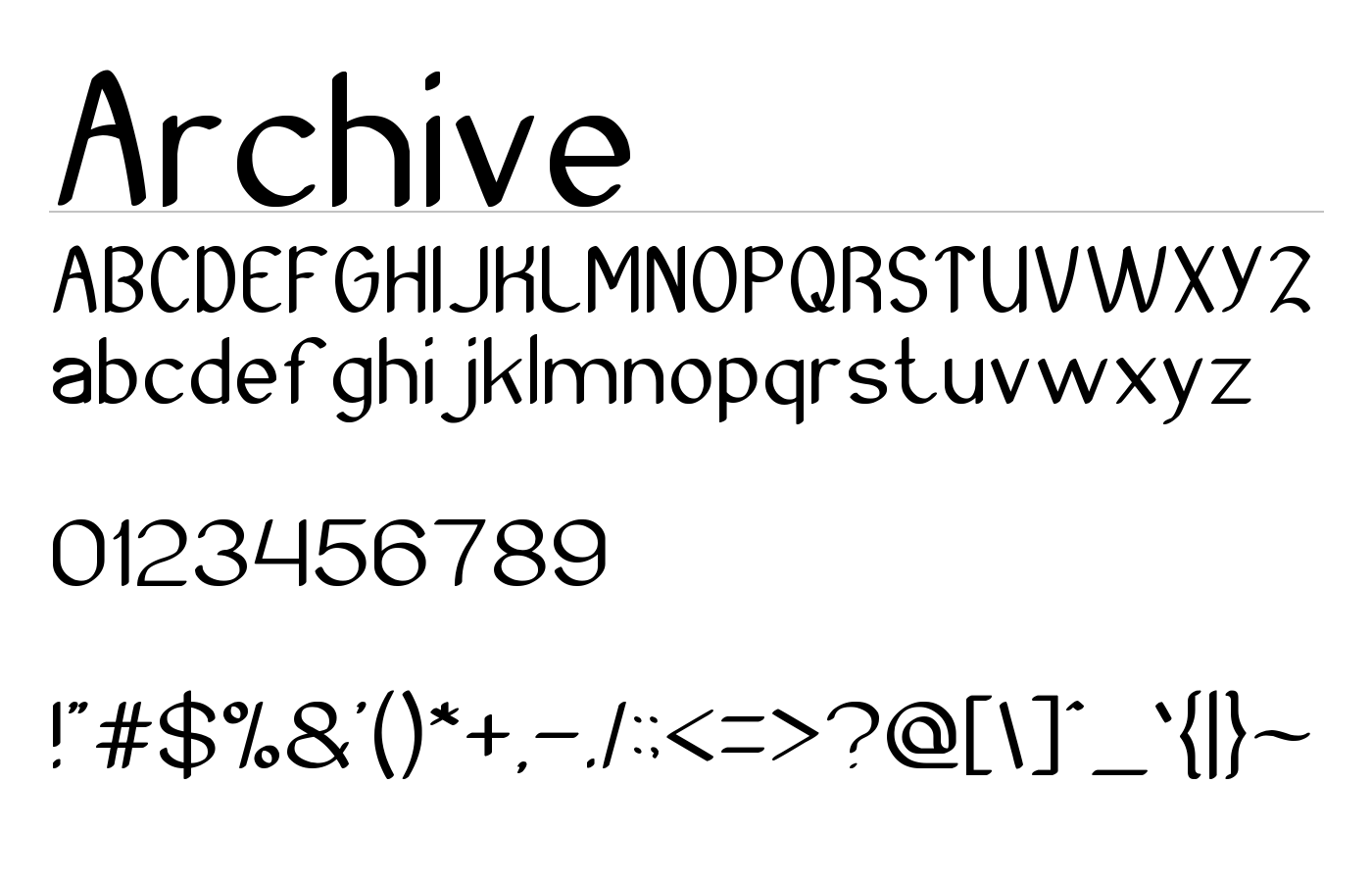
Archive Font is a playful and slightly quirky sans serif typeface characterized by its tall, narrow letterforms and subtle irregularities that give it a hand-crafted feel. With clean strokes and moderate contrast, it balances readability with a unique personality, making it perfect for creative branding, editorial headlines, and informal digital uses where a friendly yet distinctive tone is desired. Its charming, approachable style works well in designs that aim to be engaging and memorable without losing clarity.
Archive Font